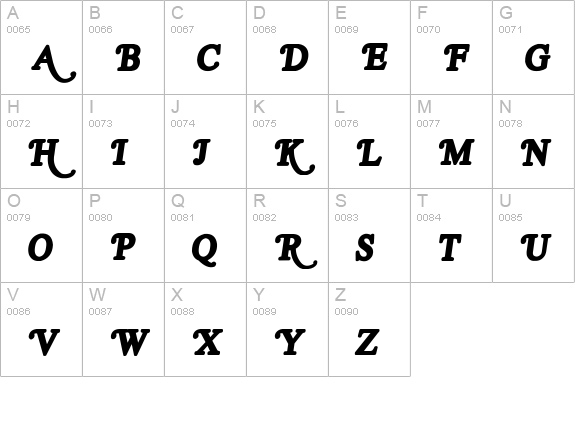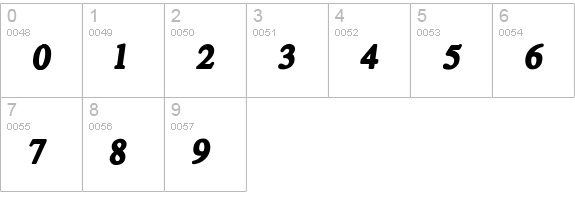
Introducing Royal Acid font - a whimsical and playful typeface that exudes elegance and charm. With its unique blend of regal flair and modern design, Royal Acid font is perfect for adding a touch of sophistication to your projects. The intricate details and ornate embellishments of this font make it a standout choice for invitations, branding, and more. Best of all, Royal Acid font is available for free download at FontsMarket.com. This means you can easily access this stunning font and elevate your designs without breaking the bank. Don't miss out on the opportunity to add a touch of royalty to your projects with the exquisite Royal Acid font. Download it today and let your creativity shine!